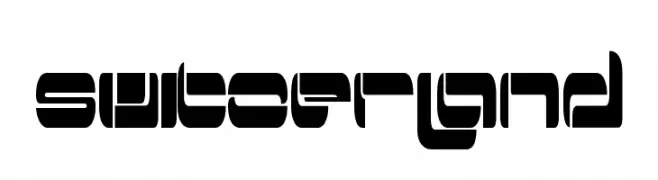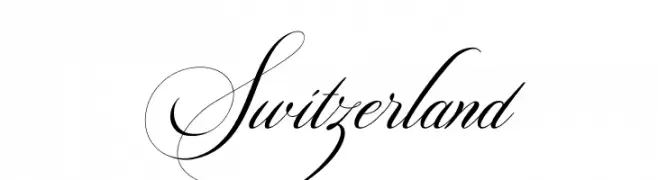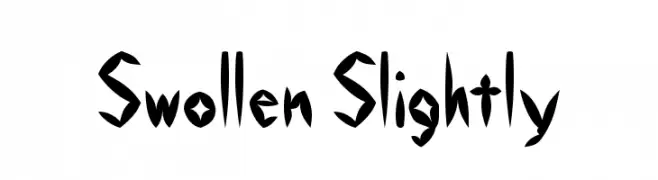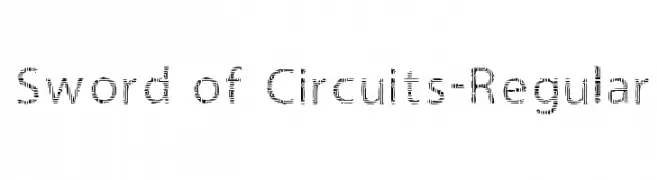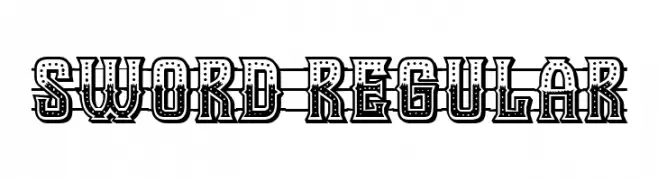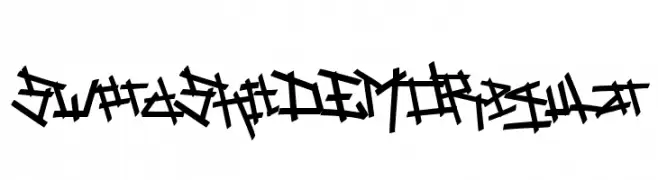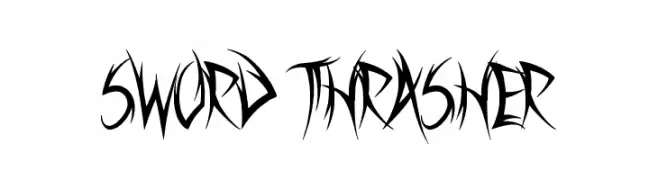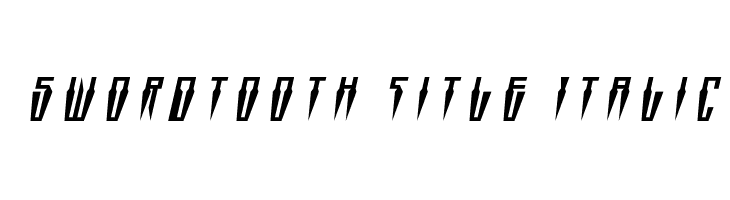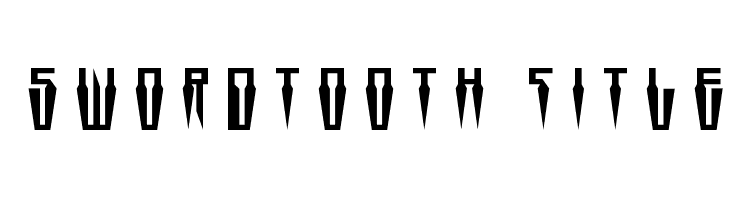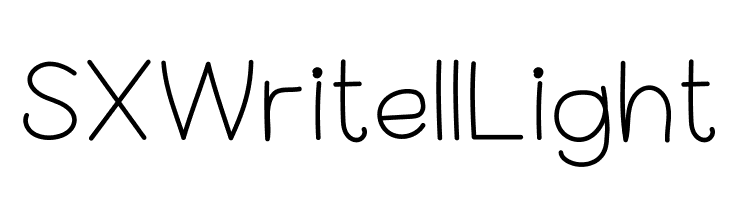
( Fonts by Arkandis Digital Foundry )
A modern sans-serif font with clean lines and excellent readability.
An elegant script font with flowing, cursive letters and intricate flourishes.
( Fonts by uatype.faithweb.com - UnAuthorized Type )
A bold, dynamic font with exaggerated, swollen strokes and playful, cartoonish shapes.
A delicate, flowing script font with elegant, continuous strokes.
( Nouman )
A circuit-inspired font with intricate line patterns and a futuristic feel.
A bold, decorative font with medieval-inspired detailing and textured patterns.
( Muhammad Fathi Al Ghazi - creativemarket.com/fathialghazi )
A bold, graffiti-inspired font with sharp, angular lines and a rebellious aesthetic.
( Font by Jonathan Harris - www.tattoowoo.com )
A sharp, aggressive font with blade-like serifs and dynamic strokes.